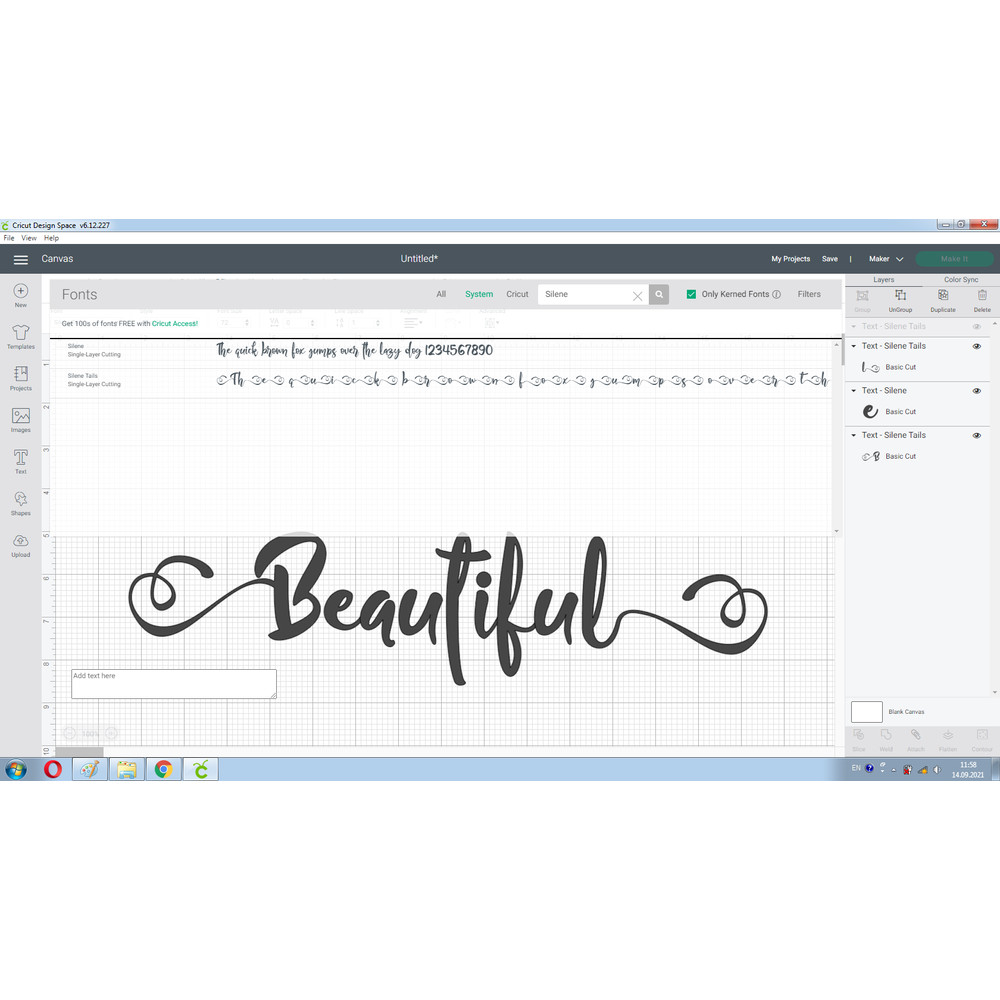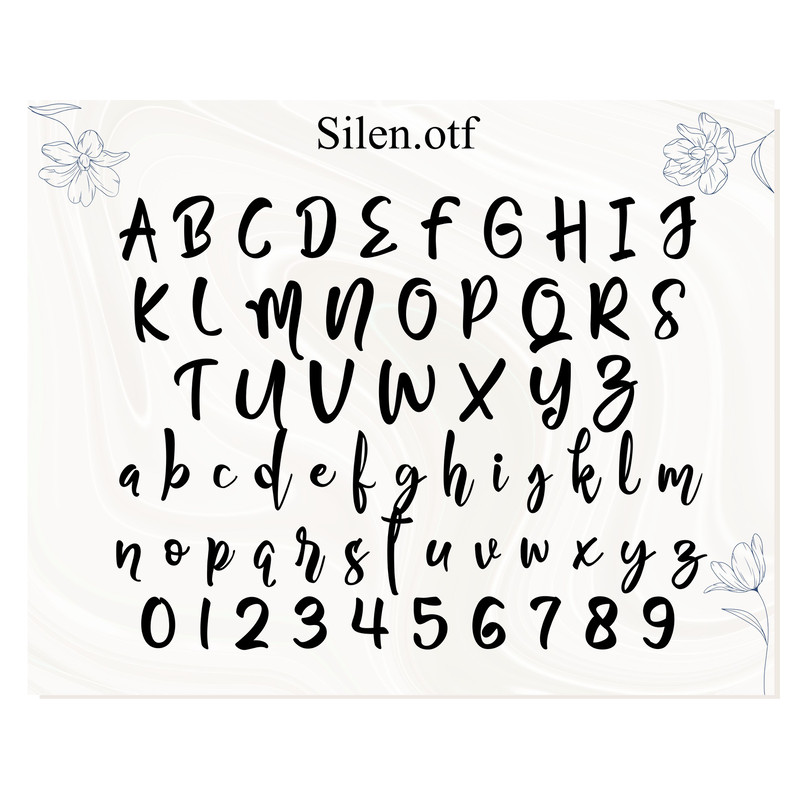
Font with Tails | Romantic Fonts, Script Fonts, Beautiful Fonts, Cursive Font, Handwritten Font, Wedding font
Violet Font with Tails | Romantic Fonts, Script Fonts, Beautiful Fonts, Cursive Font, Handwritten Font, Wedding font for Cricut Word